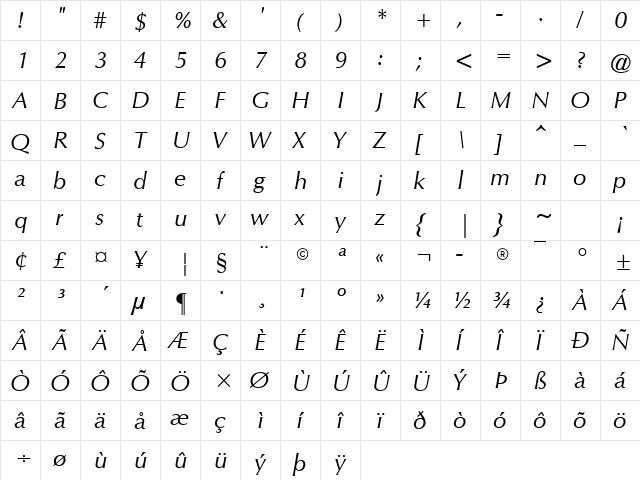
Orion Italic Regular
Design Context for Orion Italic Typeface
Orion Italic takes a measured approach to typography — its balanced proportions and neutral character make it a reliable workhorse for both digital and print work. The slanted form adds forward momentum and visual energy.
Pro Tip: Try Orion Italic for annotation and caption copy alongside an upright companion — the contrast in angle creates a dynamic but ordered typographic system.